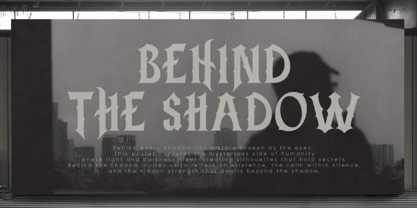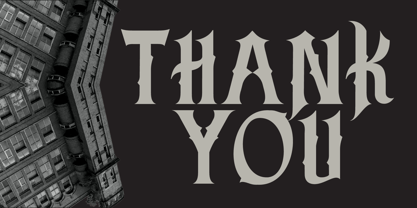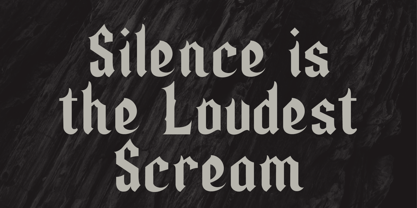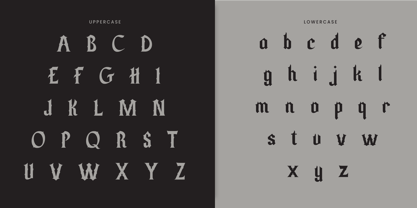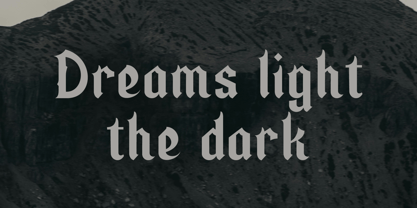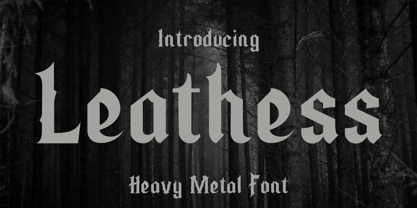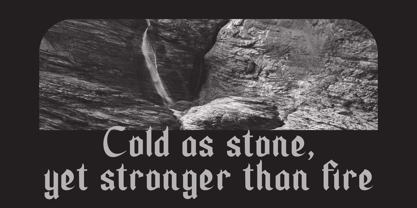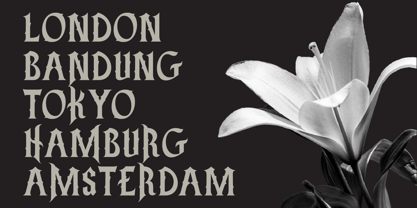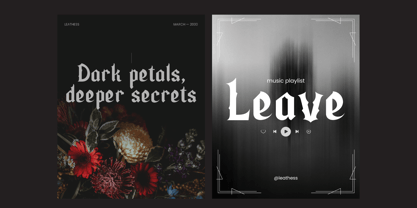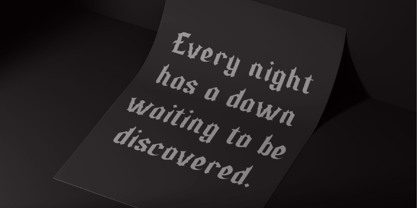
Leathess
by Rvandtype
The Leathess Font Family was designed by Randi Irvan and published by Rvandtype. Leathess contains 2 styles and family package options. More about this family
Heavy Metal Typeface for Bold Designs
• Powerful & Bold: Designed to capture the raw energy of heavy metal aesthetics, Leathess brings an intense and commanding presence to any design.
• Unique Gothic Touch: Each letter is crafted with sharp edges and gothic curves, perfect for posters, logos, and music-related projects.
• Versatile Usage: Suitable foralbum covers, event flyers, and dark-themed branding.
• Readable & Impactful: Despite its heavy style, the font maintains clarity, ensuring strong visual communication.
• Atmospheric Design: Adds a dramatic and mysterious vibe, making it ideal for creative projects that need boldness and depth.